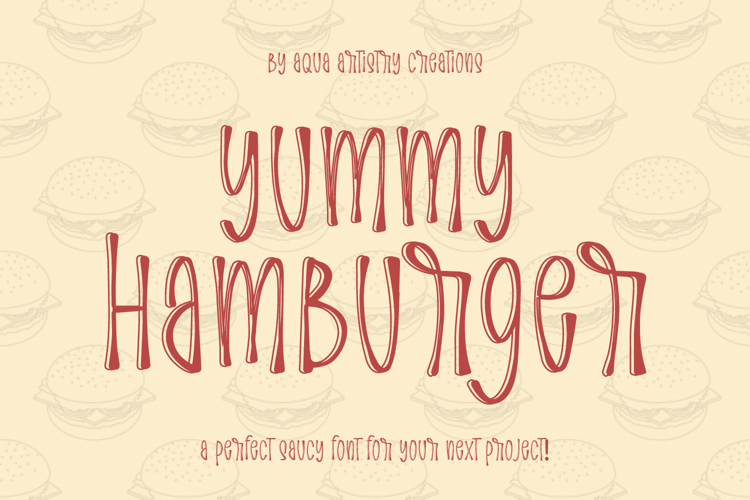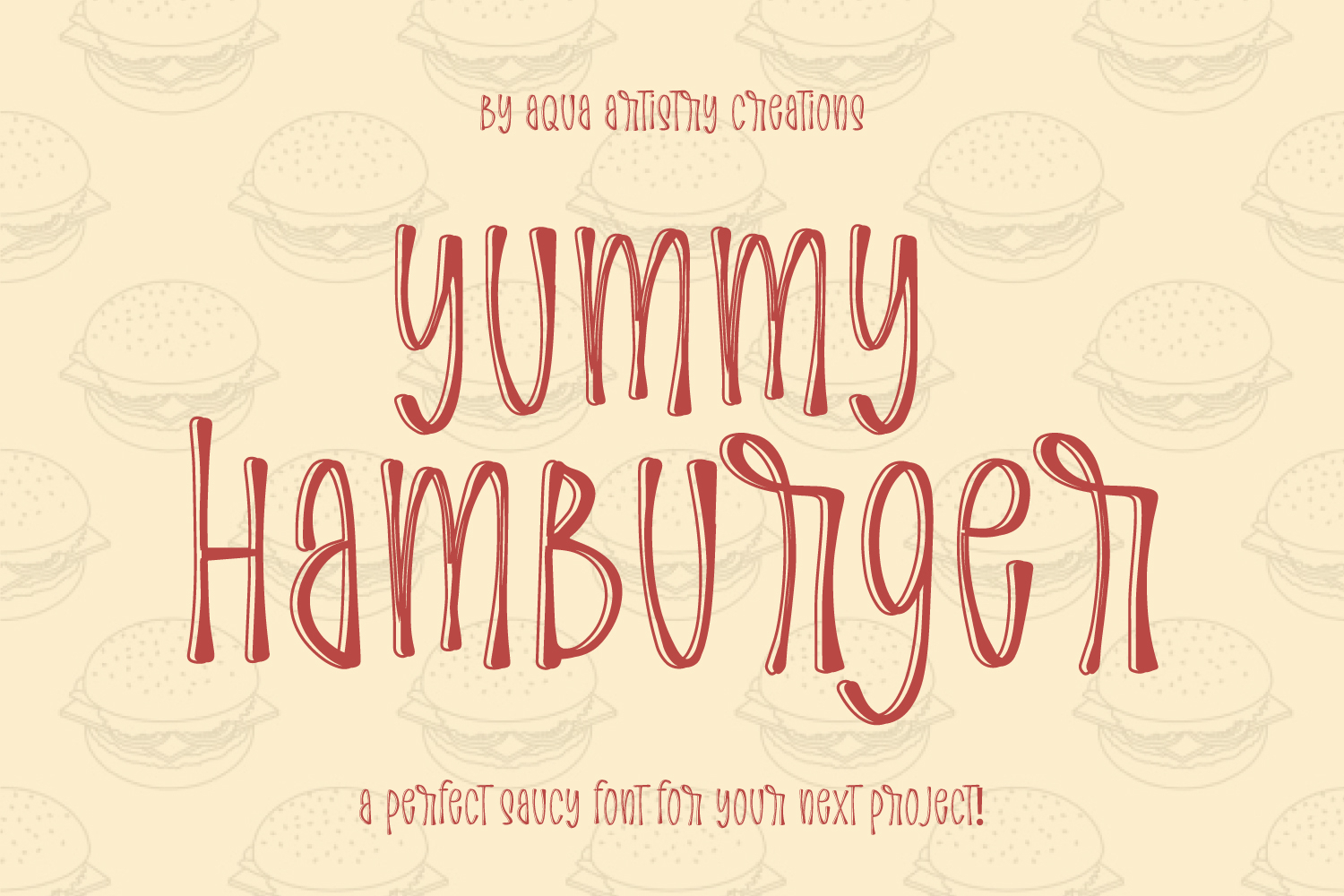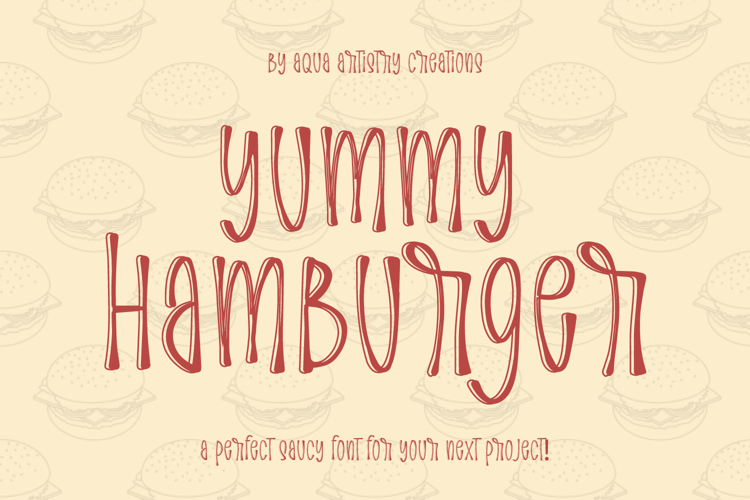
A cute YUMMY HAMBURGER Tasty Saucy Font for You - You can create lots of things using this font including logos, use in Cricut machines etc for your parties like birthdays, fun projects, and making monograms. This font is ready to help you in every situation.